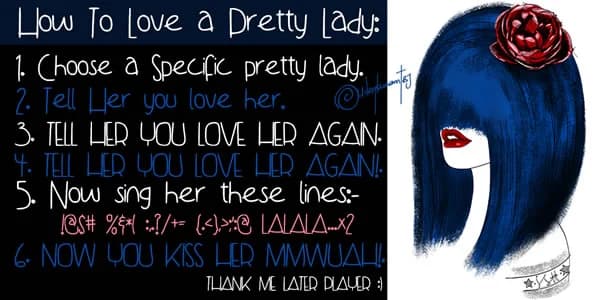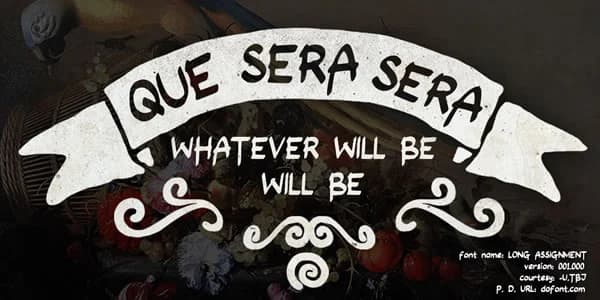
About Long Assignment Font
Long Assignment Font by TBJ Ohab is a hand-lettered script that captures the authentic warmth of genuine handwritten communication. With its flowing, organic letterforms and natural stroke variation, the typeface brings the human touch that feels increasingly rare in contemporary design, genuine personality that connects emotionally with viewers rather than relying on sterile, mass-produced perfection. This script excels in applications where authenticity genuinely drives the work. Designers use it for custom recipe cards and kitchen labels with a homemade aesthetic, personalized thank you notes and greeting cards for boutique brands, DIY party programs and hand-lettered place cards, and hand-drawn wedding suite elements that feel unmistakably personal. It performs equally well for personalized journal covers that invite thoughtful reflection, calligraphy-inspired certificates that celebrate individual achievement, small-batch product labels that catch the eye on shelves, and signature graphics for author websites. The typeface carries full commercial licensing, so you can confidently implement it across branding, packaging, stationery design, and editorial layouts without restriction. Long Assignment Font succeeds where other scripts feel forced, it genuinely looks drawn by hand because it was, and that honesty comes through in every curve and flourish. Discover this typeface on Creative Fabrica and bring the handcrafted character your next project deserves.
Long Assignment Font is a script font that shines as a display or heading face. Pair it with a clean sans-serif or serif font for body text β the contrast creates a clear hierarchy while the two styles stay balanced and easy to read.
Long Assignment Font
by TBJ Ohab